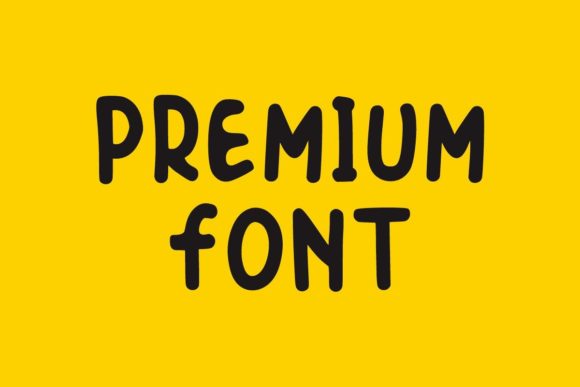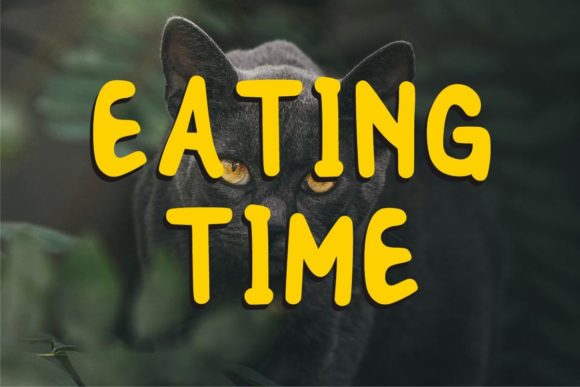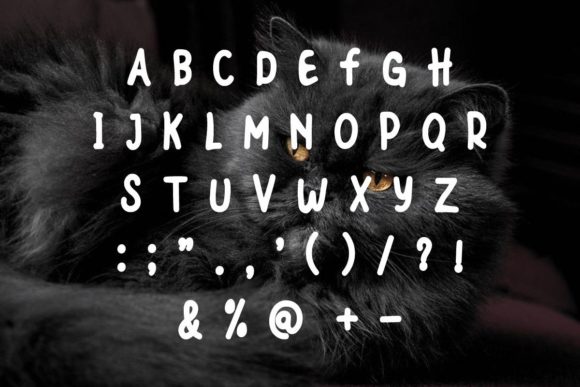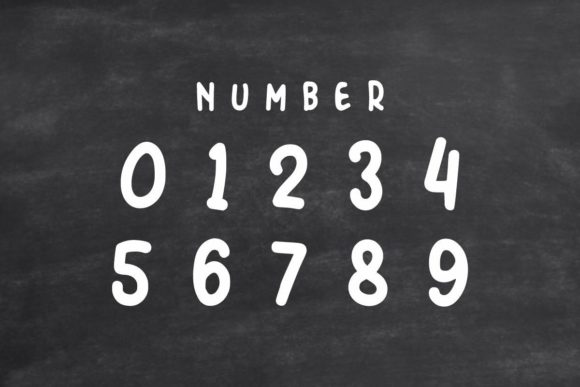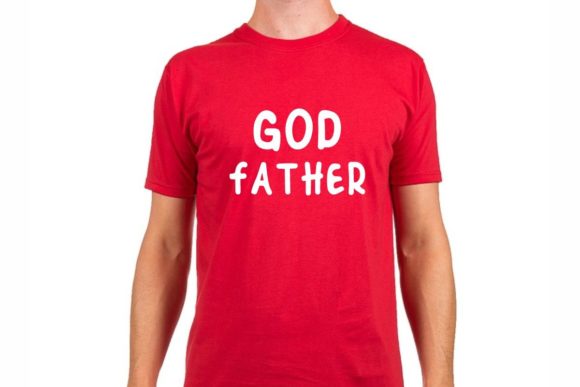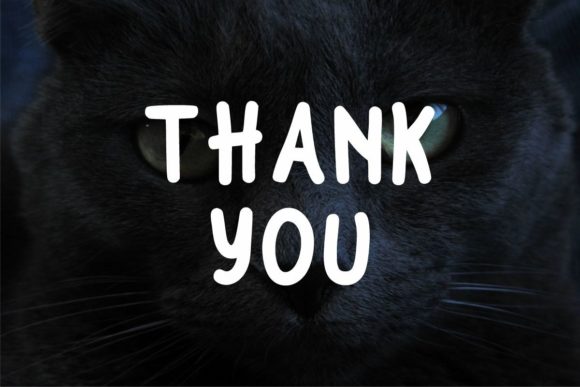
The Purrfect Font: A Deep Dive into Black Cats Font
I’ll never forget the time I was working on a Halloween-themed project for a client, and I just couldn’t find the right font to capture the spooky-cute vibe I was going for. That was until I stumbled upon Black Cats Font. It was love at first sight! The bold, dynamic effect and unique charm instantly elevated my design, and my client was thrilled with the final result. If you’re a designer, crafter, or creative hobbyist looking for a font that packs a punch, you’re in the right place.
An Honest Review of Black Cats Font
- ✨ Cute and bold: Black Cats Font is perfect for making a statement in your designs.
- ✅ Dynamic effect: The font’s unique style adds a touch of whimsy and playfulness to any project.
- 🔥 Versatile: From school posters to social media templates, text effects, logos, and monogrammed designs, Black Cats Font can do it all.
While Black Cats Font is an amazing addition to any design project, there are a few things to keep in mind:
- ⚠️ Legibility at small sizes: Like many display fonts, Black Cats Font can be a bit tricky to read at smaller sizes. Make sure to use it at a large enough size to ensure your text is legible.
- 🤔 Limited use in body text: Due to its bold and dynamic nature, Black Cats Font is best used in moderation. It may not be the best choice for large blocks of body text.
- Experiment with the font’s OpenType features, such as glyphs and stylistic alternates, to add more personality to your design.
The Story Behind Black Cats Font
While the true origins of Black Cats Font are shrouded in mystery, it’s said that the font was created by a team of designers who wanted to capture the magic and mystery of black cats. Inspired by the felines’ sleek coats and playful personalities, the designers crafted a font that’s both bold and adorable.
Q: What type of projects is Black Cats Font best suited for?
A: Black Cats Font is perfect for projects that require a bold, eye-catching font, such as school posters, social media templates, text effects, logos, and monogrammed designs.
Q: Is Black Cats Font available in different weights or styles?
A: While Black Cats Font is primarily available as a single weight, its dynamic effect and unique charm make it versatile enough to be used in a variety of contexts.